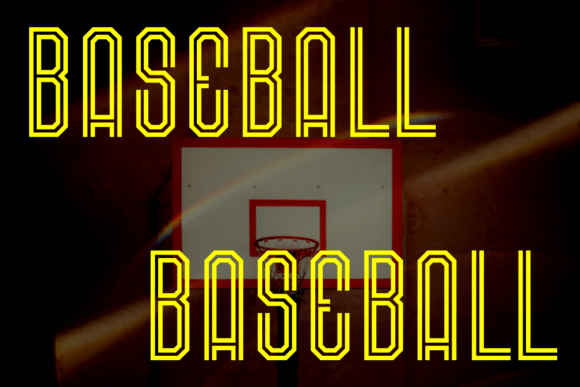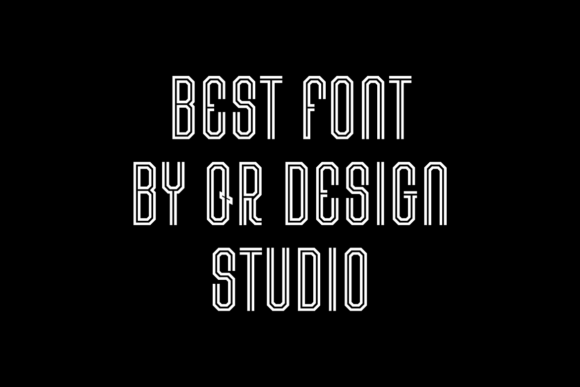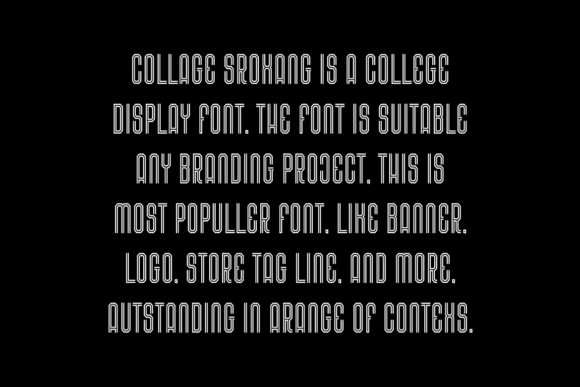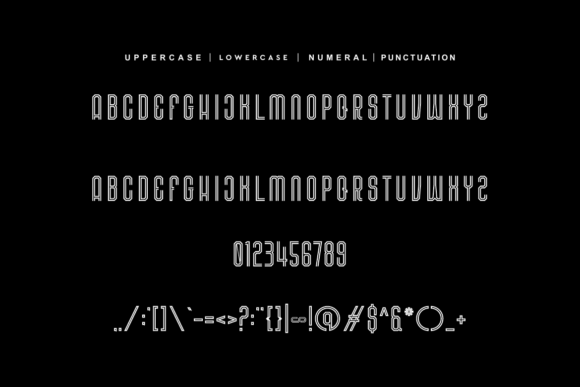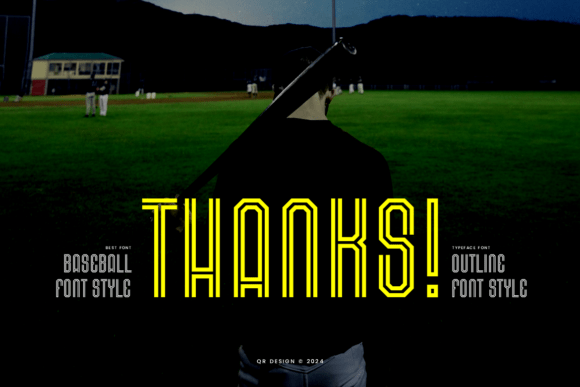
Introduction to Collage Sroxang Font Font
Fonts play a crucial role in design, and the Collage Sroxang Font font is a typeface that brings both character and versatility to any project. Whether you’re working on a branding project, a website, or a print design, the Collage Sroxang Font font offers a unique style that can elevate your work.
Collage Sroxang is a stylish outline font inspired by collegiate and baseball aesthetics.
With a clean geometric structure and layered look, it brings a strong yet fashionable presence to sports logos, team posters, and athletic-themed graphics .
Key Features of Collage Sroxang Font Font
Why Choose Collage Sroxang Font Font?
The Collage Sroxang Font font is more than just a typeface – it’s a design tool that helps you communicate your message with style and clarity. Its unique character set and versatile design make it suitable for a wide range of applications, from elegant invitations to bold headlines.
With its carefully crafted letterforms and balanced proportions, the Collage Sroxang Font font ensures readability and visual appeal across all mediums.
What makes Collage Sroxang Font font special?
The Collage Sroxang Font font stands out with its unique design, exceptional readability, and versatility across various design applications.